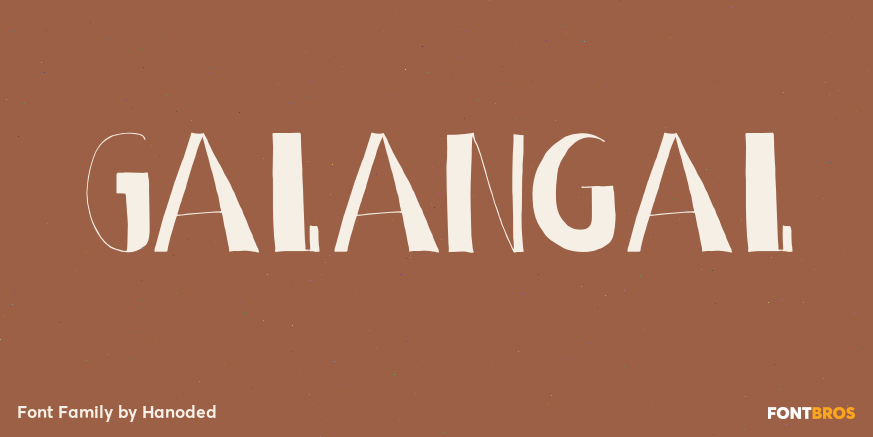
Galangal
About Galangal
Galangal, or Laos, is a root belonging to the ginger family, which is used in Indonesian cuisine. Since this font has the same design characteristics as Kurkuma, I thought naming it after a root was quite appropriate. Galangal is pretty unique, with…